When creating a resume, choosing the right font is crucial, as it can influence how potential recruiters perceive your professionalism and attention to detail. Here, we will explore some of the best fonts for resumes that will put your application ahead of the competition.
Times New Roman
Times New Roman is a classic, easy-to-read font that has stood the test of time. Created by Stanley Morison, its simple yet classy style is a favorite font choice for resumes and books, business cards, and marketing materials like flyers and brochures. Plus, this sans-serif typeface is free. Whether you use Google Docs or Microsoft Word / Microsoft Office to format your resume.
Calibri
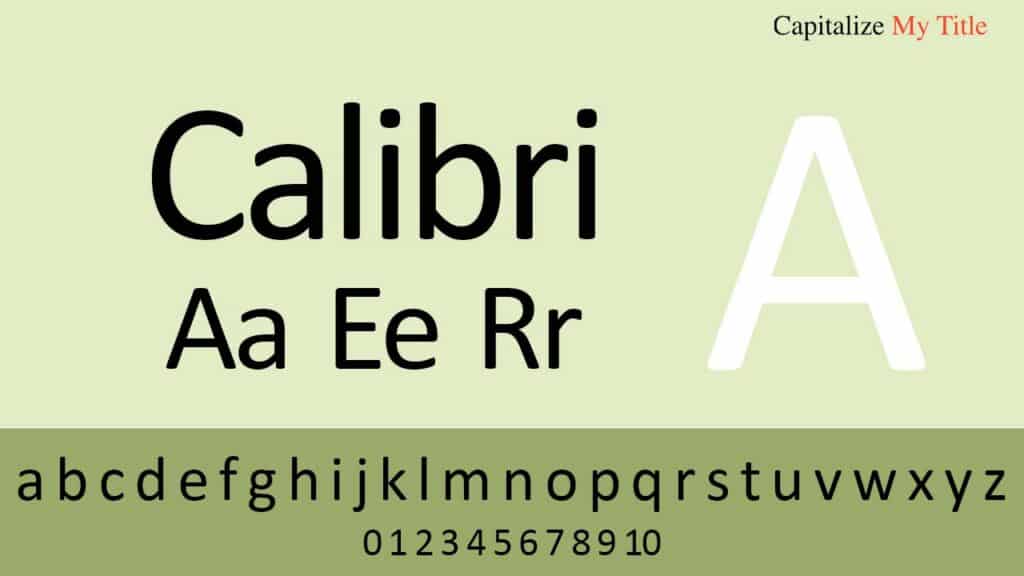
If you prefer a font with a modern edge, Calibri is an excellent choice. Designed by Lucas de Groot, it boasts a clean and easily readable appearance that adds a touch of sophistication to your resume. Calibri’s rounded letterforms and generous spacing contribute to its contemporary and professional look. Since it’s a standard font in most word-processing software, you won’t have to go through the hassle of searching for and installing it separately.
Carlito
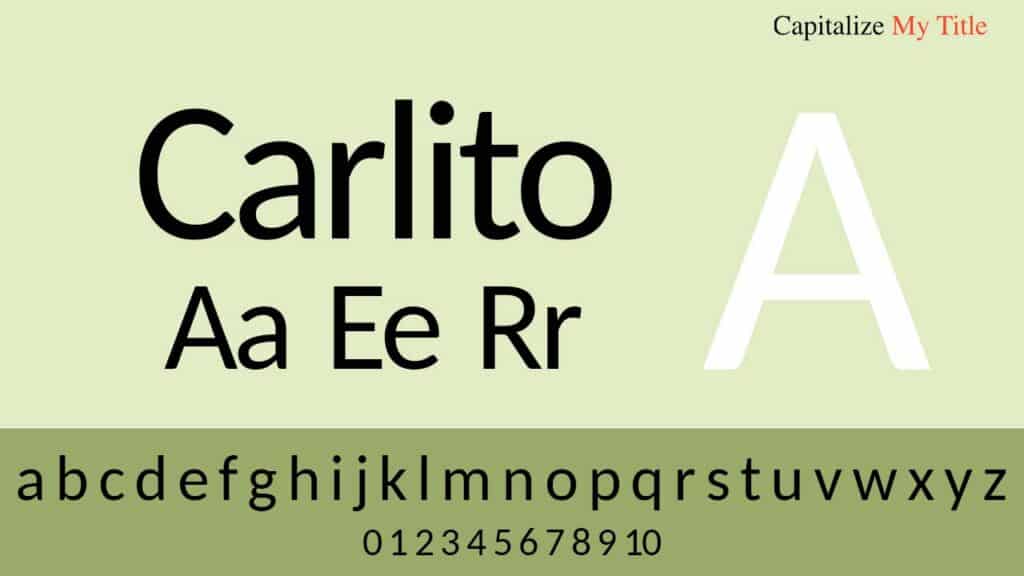
Looking for a font that combines modernity and versatility? Look no further than Carlito by Łukasz Dziedzic. Carlito, created as a free and open-source alternative to Calibri, also rocks a clean and contemporary characteristic style. It’s a perfect choice if you want the hiring manager to immediately notice how professional and clean your resume is.
Helvetica
When it comes to versatility, few fonts can match the iconic Helvetica. Helvetica, created by Max Miedinger and Eduard Hoffmann, is widely recognized for its clean lines and balanced design. Its neutral and unobtrusive style allows the content of your resume to shine while giving it a modern and stylish appearance. While Helvetica might not be included in the default font lists of most applications, you can easily find it for purchase or download from various sources if you wish to use it in your resume.
Garamond
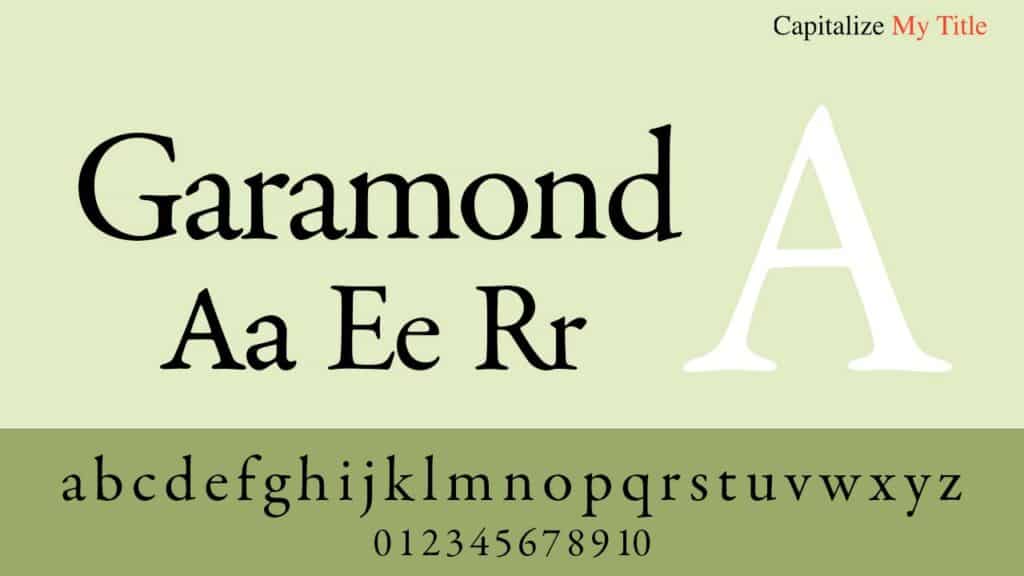
Created by Claude Garamond, it is a font that stands out for a touch of elegance and sophistication. With its rich history dating back to the 16th century, Garamond is a classic serif font that adds timeless charm to your resume.
Its gracefully curved letterforms and moderate strokes make it highly legible and pleasing to the eye. Like the different fonts we’ve included in the list, Garamond is available and free to use.
Arial
When it comes to simplicity and readability, Arial is a go-to font for many resume writers. Designed by Robin Nicholas and Patricia Saunders, Arial offers a clean and straightforward appearance that ensures your resume is easy to scan and comprehend.
It has uniform stroke widths and a sans-serif style, making it highly versatile for section headings or section headers of your professional resume.
Tahoma
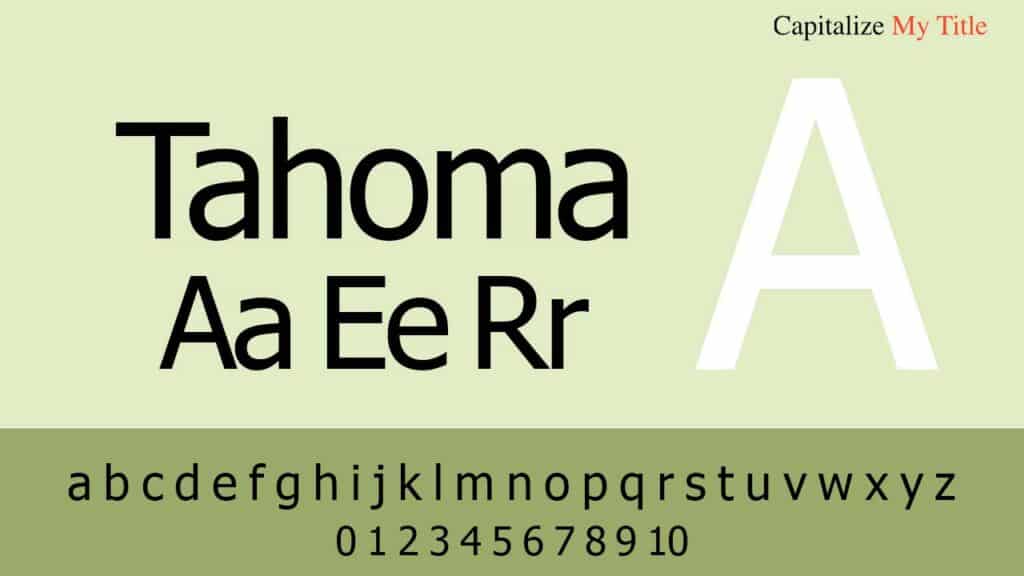
If you’re looking for a font that strikes a balance between modernity and legibility, Tahoma is an excellent choice. Designed by Matthew Carter, Tahoma features crisp letterforms and generous spacing, making it highly readable even at smaller sizes.
Moreover, since it has a clean and professional appearance, it is a great font for conveying a sense of clarity and precision in your resume.
Verdana
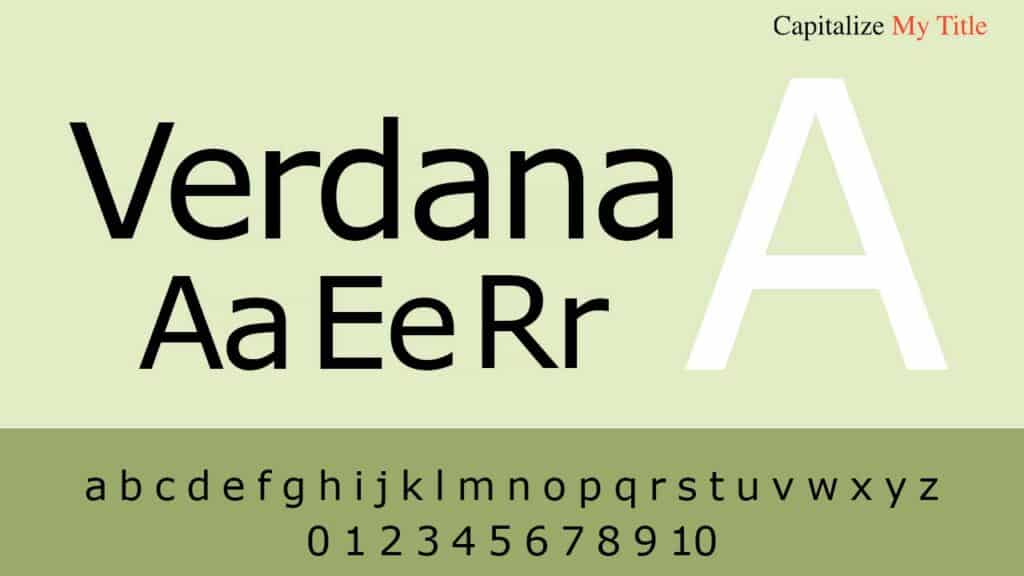
Verdana is a top contender for being the best font for on-screen reading. Created by Matthew Carter, Verdana features generous spacing and clear letterforms. This means that this font for resumes is highly legible, even in small sizes on computer screens.
What does this mean for you? Your resume is easy to read, even when the hiring manager views your resume on different devices or platforms.
Georgia
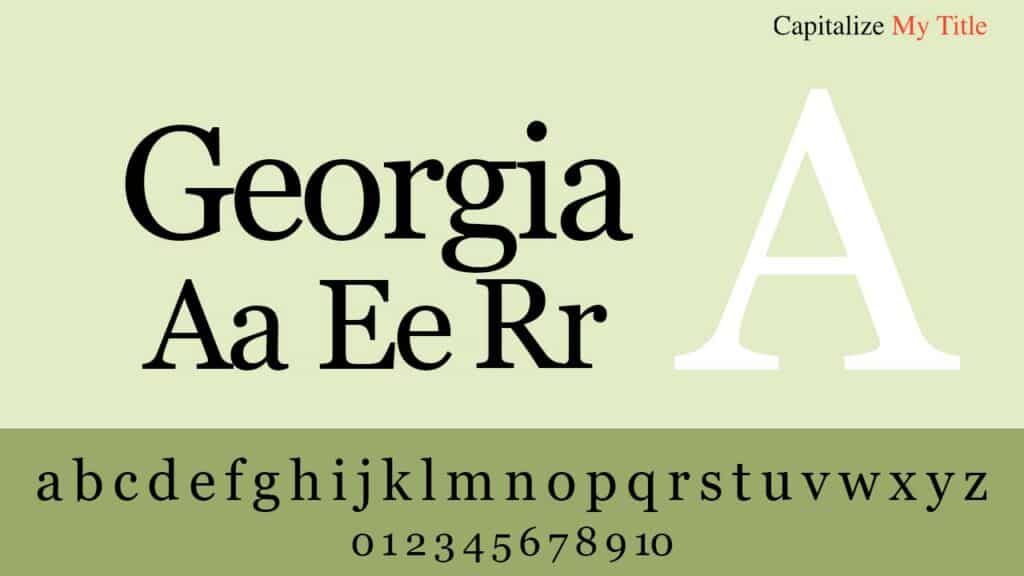
For a touch of sophistication and elegance, Georgia is an excellent choice. Designed by Matthew Carter, this serif font draws inspiration from classic typefaces and adds a contemporary twist. Its well-defined serifs and generous proportions lend a sense of professionalism to your resume while maintaining readability.
It’s so clean and professional-looking that the New York Times, Telegraph, Amazon, Twitter, Yahoo, and The Independent have crowned Georgia as their font of choice!
Cambria
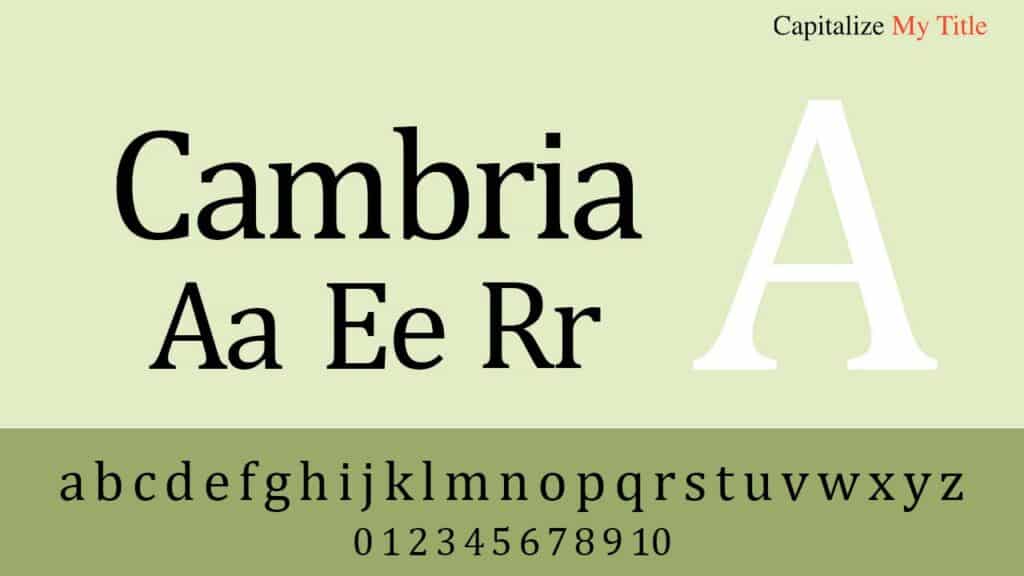
Cambria is another resume font favorite. It features sturdy letterforms and a balanced appearance that ensures optimal readability. Plus, it has ample spacing between the letters!
Didot
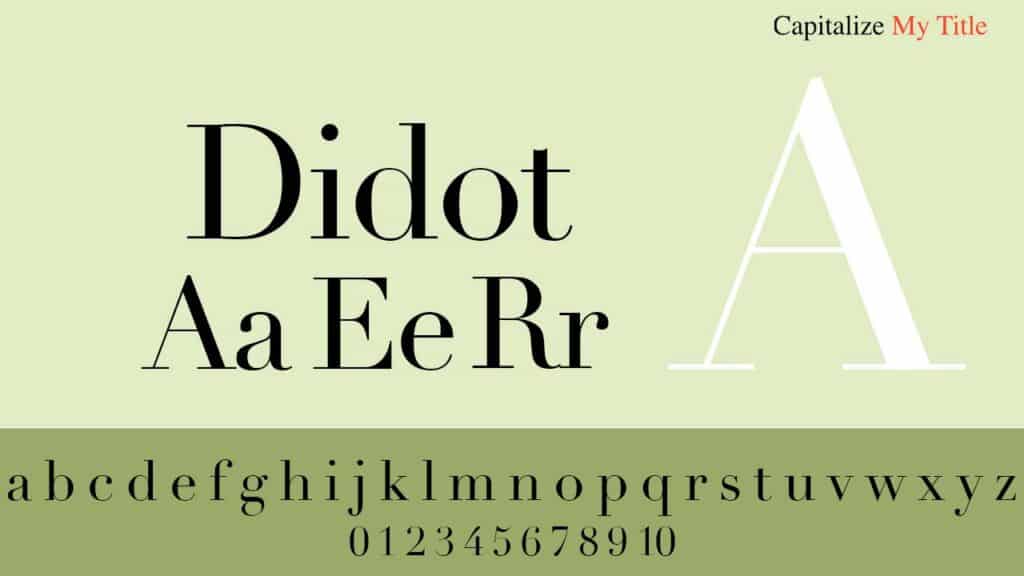
When it comes to fonts that make a bold statement, Didot is a standout choice. This elegant serif font, designed by Firmin Didot, is characterized by its high contrast and fine hairline serifs.
Book Antiqua
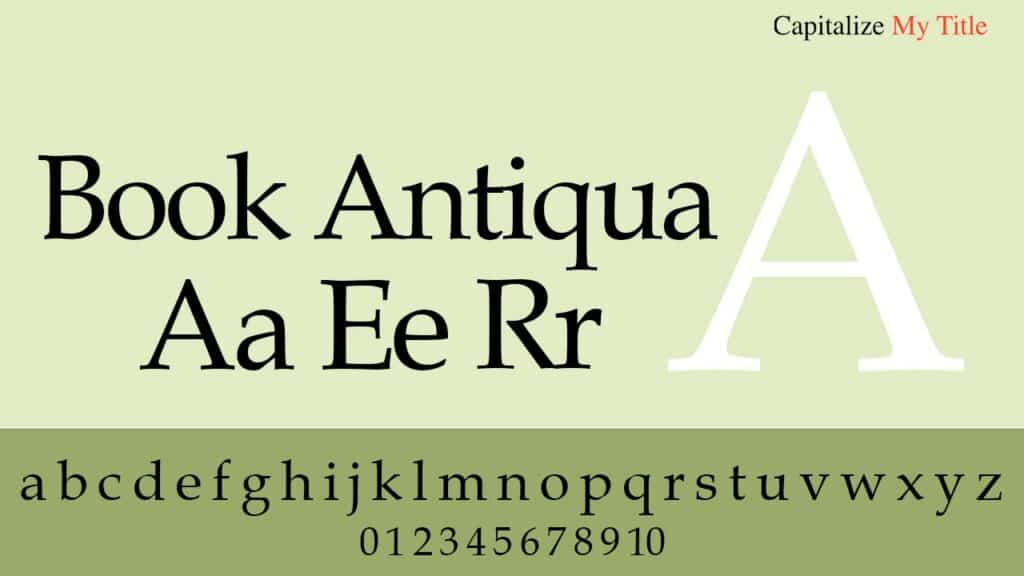
If you’re aiming for a classic and timeless look, Book Antiqua is a font worth considering. Inspired by the elegant lines of traditional typefaces, Book Antiqua combines serifs with a contemporary touch.
Trebuchet MS
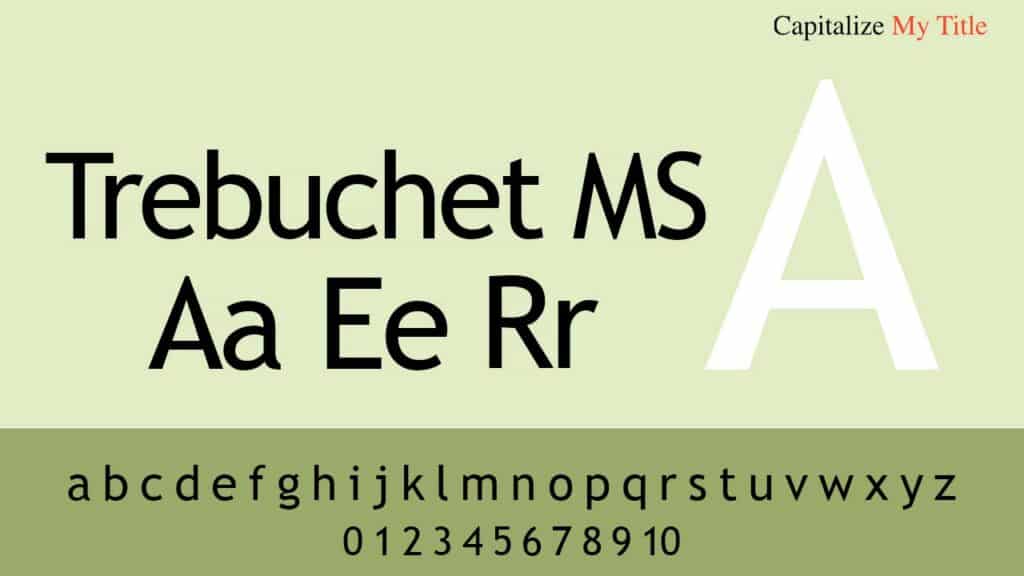
Source Sans Pro
If you value simplicity and readability, Source Sans Pro is a font worth considering for your resume. This sans-serif font features a harmonious balance between curved and straight lines, making your resume not overly distracting.
Source Sans Pro is free, making it an accessible choice for anyone looking to create a polished and readable resume.